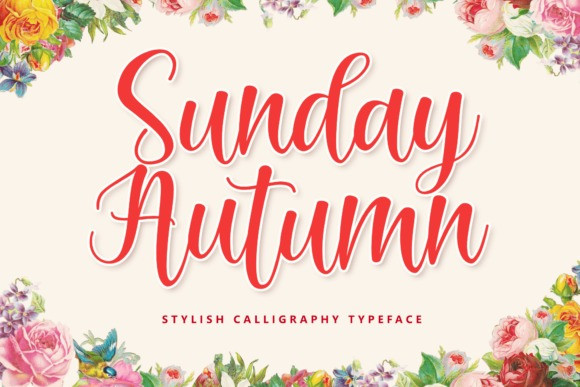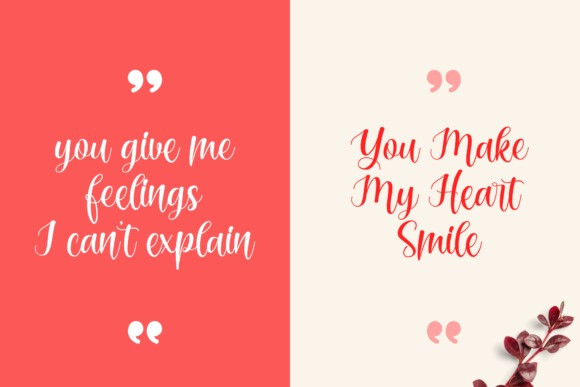
Sunday Autumn Font
Sunday Autumn Script Font is a clean and beautiful handwritten font. This font is the perfect fit for all of your logos, branding, social media, and crafty DIY projects.